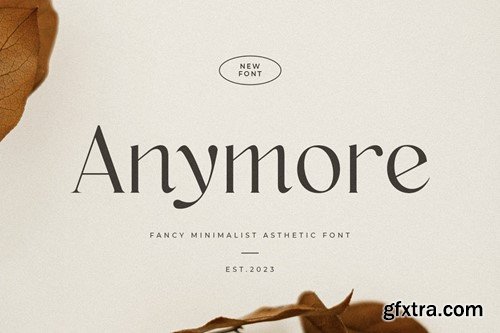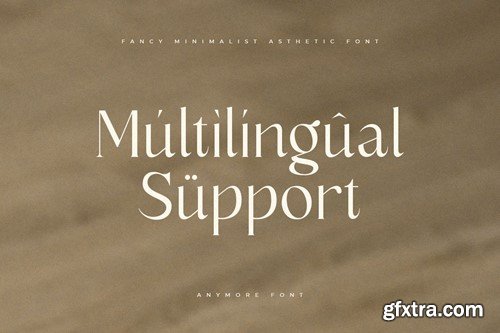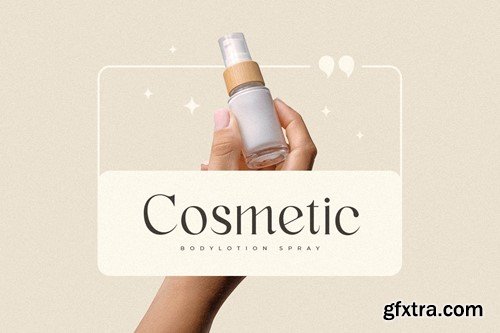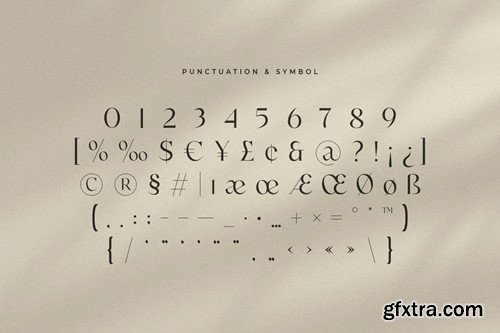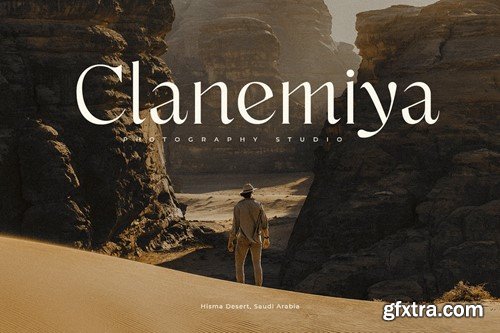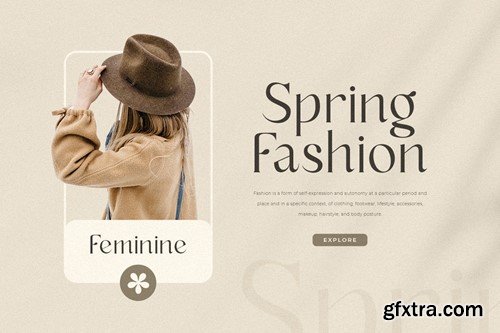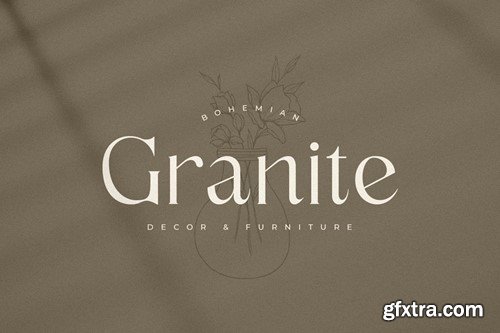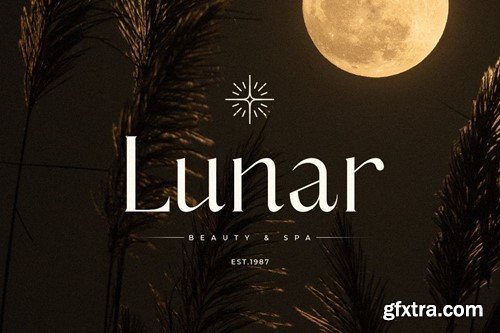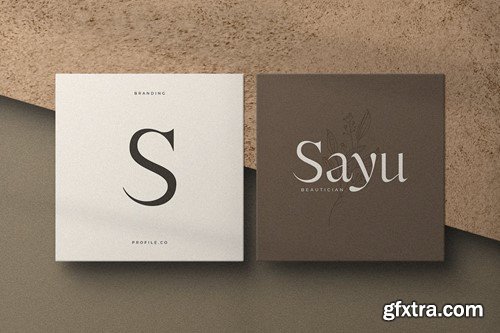
任何更多 - 洛感极简美学字体 92RSVS8
Anymore Fancy Minimalist Aesthetic Font is a well-balanced contemporary font with a Minimalist Aesthetic font for Minimalist, and luxury branding needs, with Fancy stylish touch, font that you can combine to get any variations and unique shapes easily just in seconds with choose variations of them. It is a serif display font with moderate contrast that perfect for branding projects, logo, wedding designs, social media posts, advertisements, product packaging, product designs, label, photography, watermark, invitation, stationery, and any projects, it makes with a high level of legibility. What's Included: Recommended using Adobe Illustrator or Adobe Photoshop. Wish you enjoy our font. :)